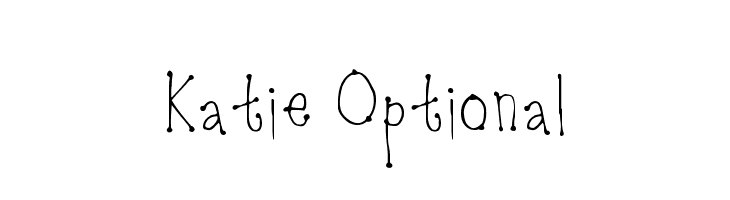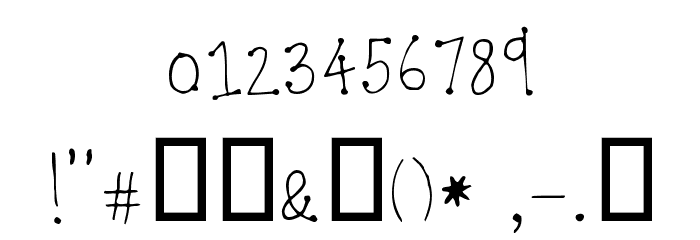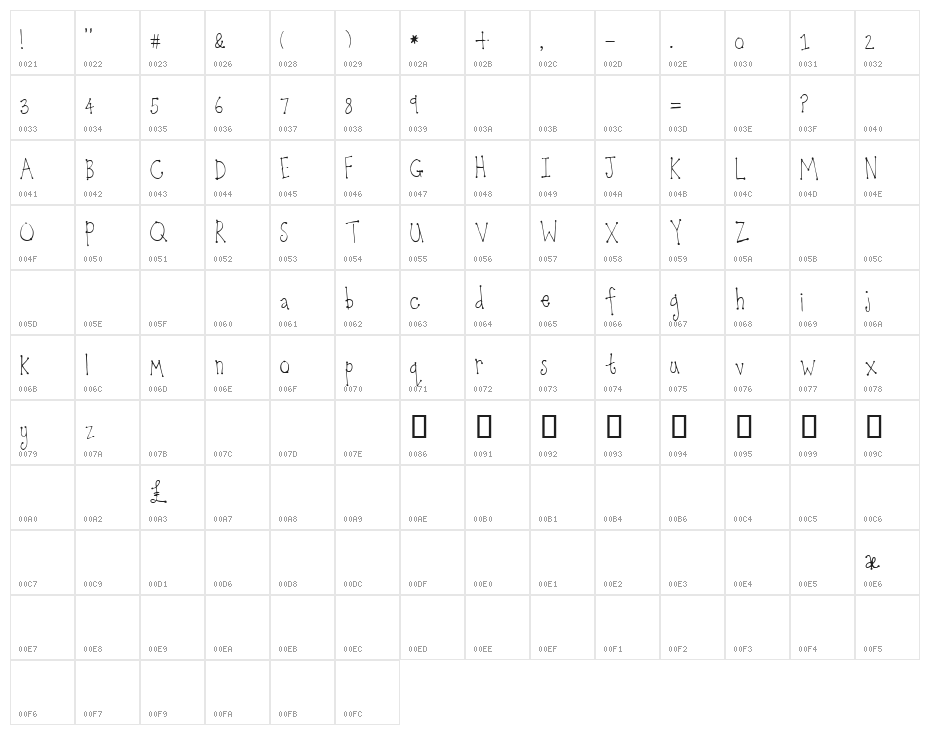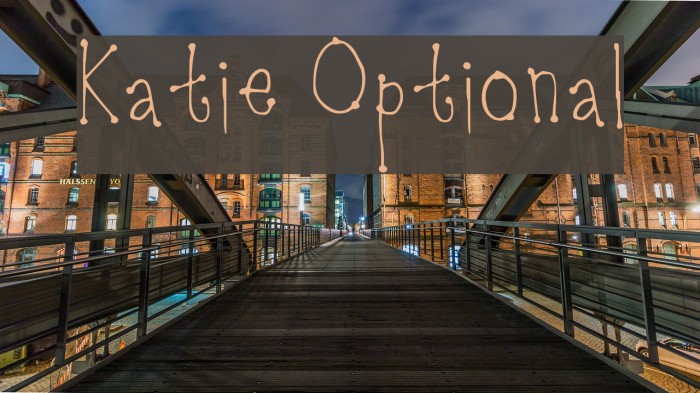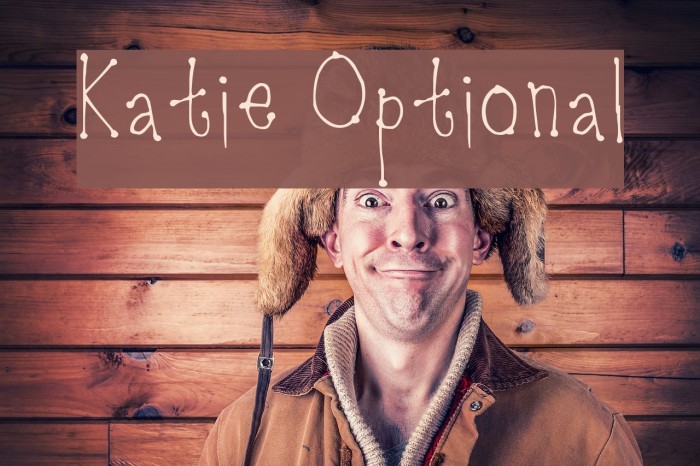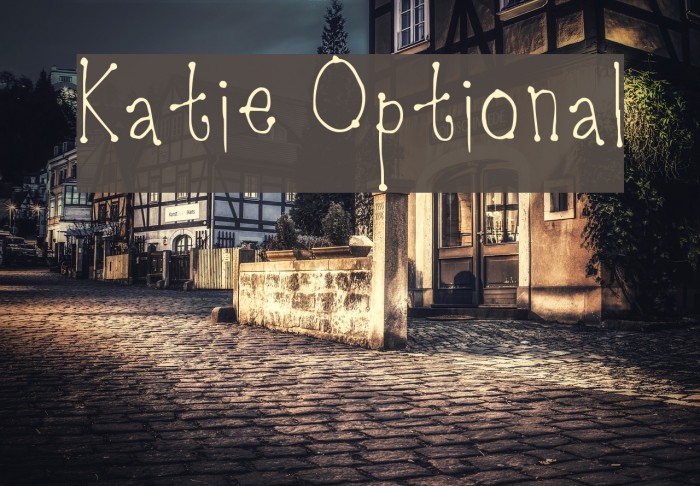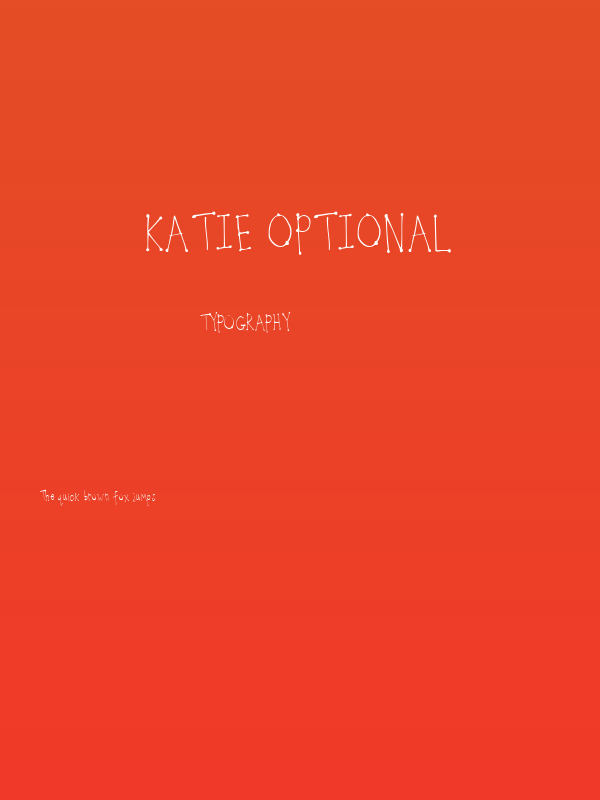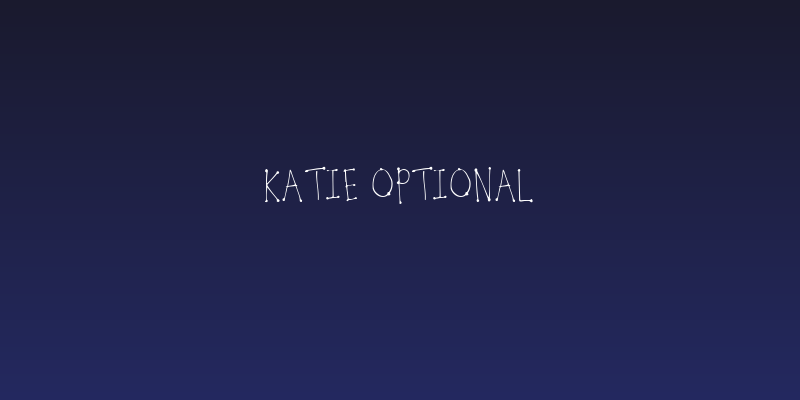
Katie Optional Font
Katie Optional Description
This font features a whimsical and playful design, characterized by its irregular, hand-drawn appearance. Each letter is connected by thin lines with small circular nodes at the intersections, giving it a constellation-like effect. The uppercase and lowercase letters maintain a consistent style, with a slightly uneven baseline that adds to its charm. The numbers and special characters follow the same playful aesthetic, making it suitable for creative and informal projects. The overall look is unique and eye-catching, perfect for adding a touch of personality to any design.
| Overall Style | Playful, Artistic |
| Use Case | Headlines, Logos, Creative Projects |
| Proposed Projects | Ideal for children's books, creative posters, playful branding, and artistic invitations. |